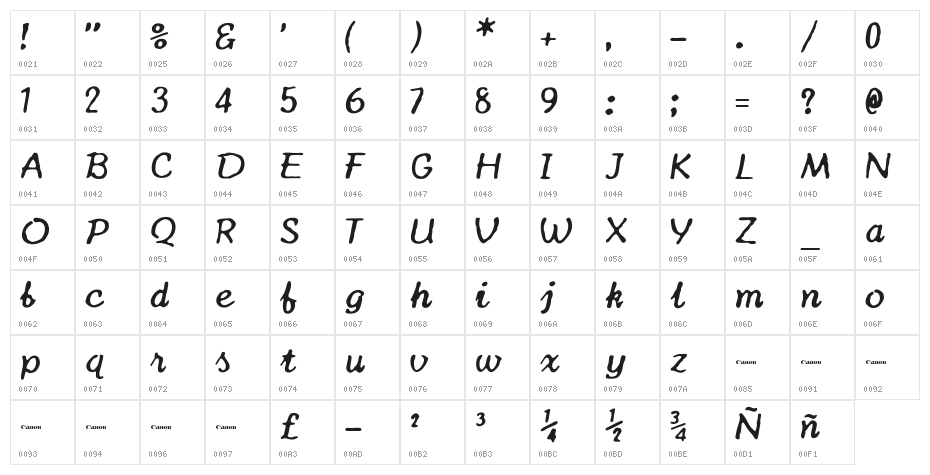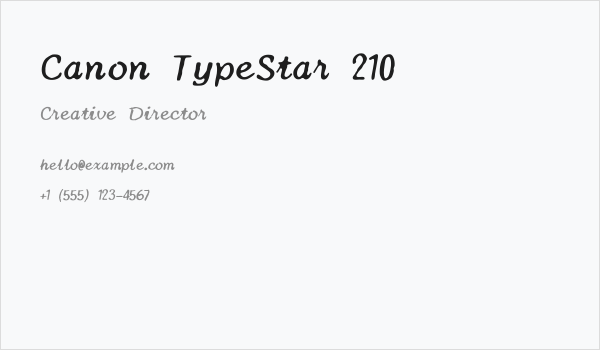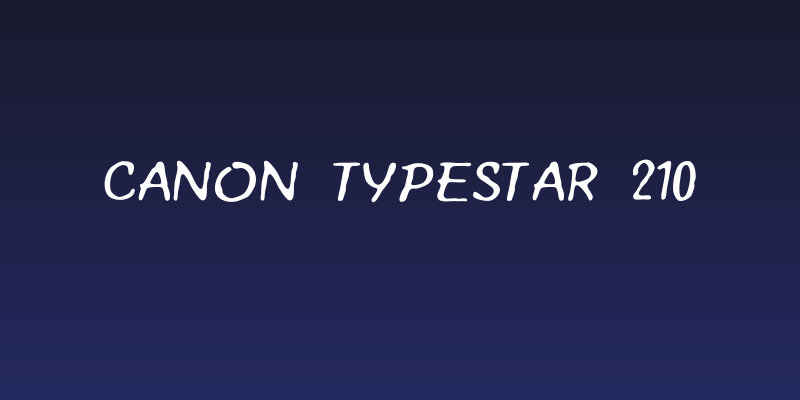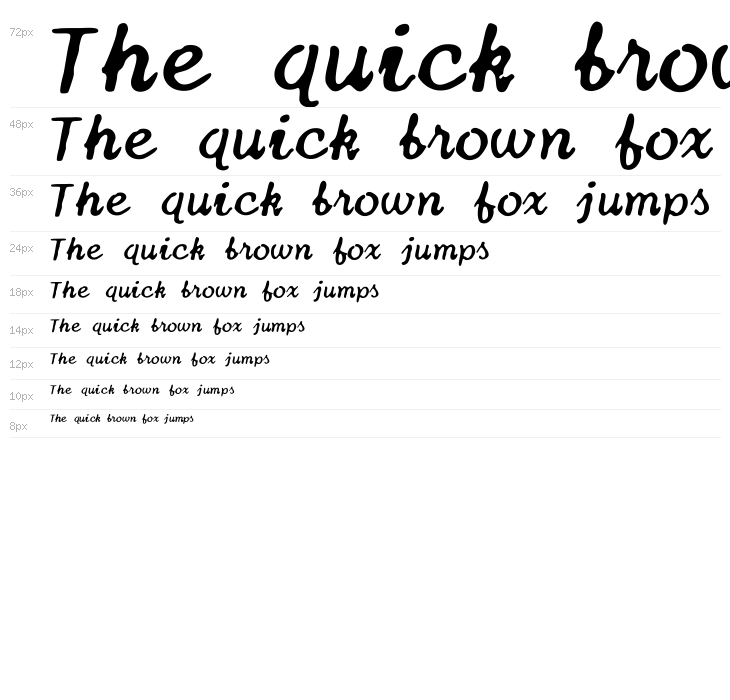
Canon TypeStar 210 Font
Canon TypeStar 210 Description
This font features a playful and dynamic script style with a handwritten appearance. The characters are slightly slanted, giving a sense of movement and fluidity. The strokes are bold and rounded, with a consistent thickness that adds to the font's legibility. The uppercase letters maintain a uniform height, while the lowercase letters have a slight variation in size, enhancing the casual and informal feel. The numerals are clear and distinct, matching the overall style of the alphabet. Special characters are well-integrated, maintaining the same playful and bold characteristics. This font is ideal for projects that require a personal touch or a sense of creativity.
Use CaseLogos, Headlines, Creative projects
Proposed ProjectsGreeting cards, invitations, branding, and creative posters.